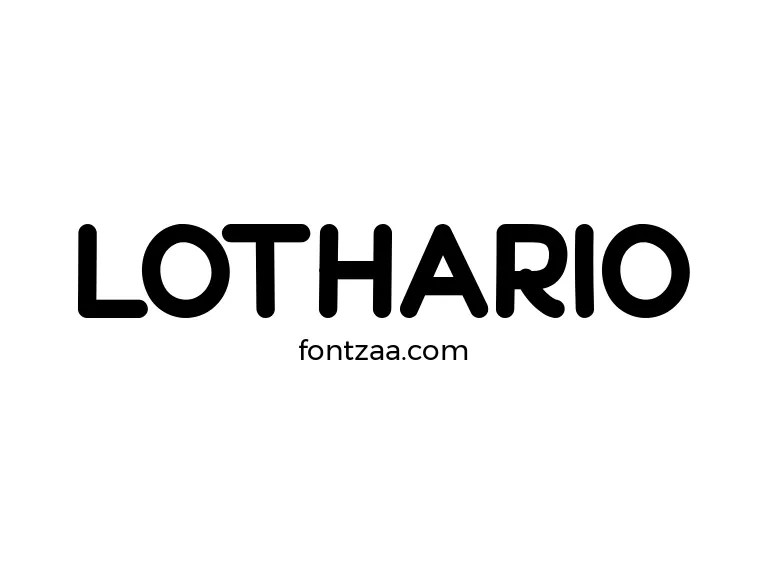
Lothario Font introduces a modern typographic style that can give creative projects a more individual appearance. For projects that need typography with a stronger identity, Lothario Font offers a modern direction suited to creative display work. Testing several arrangements before choosing the final version can reveal which characteristics of the typeface work best. The typeface can change considerably depending on tracking, scale, alignment, background and surrounding imagery. Different color combinations can make the same font feel subtle, energetic, premium or highly decorative. Creative uses may range from logos, wordmarks, branding, posters, packaging and promotional graphics, with different results depending on scale and layout. Print and digital layouts may require different sizing and spacing, so testing the actual output dimensions is recommended. Designers should evaluate the typeface inside the real project because a standalone preview cannot show every possible visual combination. Source metadata currently associates the font with Goliatte Creative. License details are currently listed as Free for personal use. Users should verify the supplied documentation before using the font in products or paid projects. Experimenting directly in the intended design is usually the best way to judge whether the typeface suits the project.
The visual character of Lothario Font makes it an interesting choice for designers working on headlines, branding and promotional layouts. The font can work as the primary visual element in a minimal layout or as part of a more detailed composition. The typeface can change considerably depending on tracking, scale, alignment, background and surrounding imagery. Different color combinations can make the same font feel subtle, energetic, premium or highly decorative. The font can be considered for projects such as logos, wordmarks, branding, posters, packaging and promotional graphics. Designers should evaluate the typeface inside the real project because a standalone preview cannot show every possible visual combination. Print and digital layouts may require different sizing and spacing, so testing the actual output dimensions is recommended. According to the available font information, the typeface is associated with Goliatte Creative. The listed license is Free for personal use, although users should still review the original font package before commercial use. The most effective treatment will vary by project, so designers should compare several versions before finalizing the artwork.
Designers exploring a modern typeface can use Lothario Font to add a more recognizable visual voice to digital and print projects. The font can work as the primary visual element in a minimal layout or as part of a more detailed composition. Different color combinations can make the same font feel subtle, energetic, premium or highly decorative. The typeface can change considerably depending on tracking, scale, alignment, background and surrounding imagery. Possible applications include logos, wordmarks, branding, posters, packaging and promotional graphics. A clean serif or sans serif companion can handle smaller text while this font remains focused on headlines and key messages. Print and digital layouts may require different sizing and spacing, so testing the actual output dimensions is recommended. The available source information lists Goliatte Creative as the designer or publisher. The available licensing label is Free for personal use, but redistribution and commercial permissions should always be confirmed from the original source. A few quick layout variations can help determine where the font creates the strongest visual result.
Lothario Font Family
Designers can use the Lothario Font Family in several ways by varying scale, alignment, background treatment and supporting typography. With its distinctive letterforms, Lothario Font can introduce a modern character into font-family exploration. The typeface can change considerably depending on tracking, scale, alignment, background and surrounding imagery. Testing several arrangements before choosing the final version can reveal which characteristics of the typeface work best. Different color combinations can make the same font feel subtle, energetic, premium or highly decorative. Designers may explore it across logos, wordmarks, branding, posters, packaging and promotional graphics, depending on the tone and requirements of the project. Print and digital layouts may require different sizing and spacing, so testing the actual output dimensions is recommended. Keeping secondary typography simple often allows the distinctive qualities of the main font to remain more visible. The designer or publisher information available for this typeface is Goliatte Creative. The listed license is Free for personal use, although users should still review the original font package before commercial use. Its final appearance will depend heavily on the surrounding colors, imagery, spacing and supporting typography.
Designers exploring a modern typeface can use Lothario Font to add a more recognizable visual voice to discovering alternatives and related typography. Using generous space around the lettering can help the details of the typeface remain visible instead of competing with other elements. The font can work as the primary visual element in a minimal layout or as part of a more detailed composition. The typeface can change considerably depending on tracking, scale, alignment, background and surrounding imagery. Designers may explore it across logos, wordmarks, branding, posters, packaging and promotional graphics, depending on the tone and requirements of the project. Previewing the final layout on both large and small screens helps identify spacing and readability problems early. Print and digital layouts may require different sizing and spacing, so testing the actual output dimensions is recommended. The available source information lists Goliatte Creative as the designer or publisher. Current license information is shown as Free for personal use; checking the original documentation is recommended before client or commercial work. Testing the font with the actual project text can provide a much better impression than viewing isolated sample characters. Explore more typography on Fontzaa or browse the 100% Free Fonts collection.
Projects That Suit Lothario Font
The visual character of Lothario Font makes it an interesting choice for designers working on different creative applications for the font. The typeface can change considerably depending on tracking, scale, alignment, background and surrounding imagery. The font can work as the primary visual element in a minimal layout or as part of a more detailed composition. Its letter shapes become especially noticeable at larger sizes, where spacing and proportions can be explored more clearly. Creative uses may range from logos, wordmarks, branding, posters, packaging and promotional graphics, with different results depending on scale and layout. Previewing the final layout on both large and small screens helps identify spacing and readability problems early. A clean serif or sans serif companion can handle smaller text while this font remains focused on headlines and key messages. Source metadata currently associates the font with Goliatte Creative. Current license information is shown as Free for personal use; checking the original documentation is recommended before client or commercial work. Testing the font with the actual project text can provide a much better impression than viewing isolated sample characters.
Tips for Better Results With Lothario Font
With its distinctive letterforms, Lothario Font can introduce a modern character into spacing, contrast, scale and layout decisions. The font can work as the primary visual element in a minimal layout or as part of a more detailed composition. Using generous space around the lettering can help the details of the typeface remain visible instead of competing with other elements. The typeface can change considerably depending on tracking, scale, alignment, background and surrounding imagery. Possible applications include logos, wordmarks, branding, posters, packaging and promotional graphics. A clean serif or sans serif companion can handle smaller text while this font remains focused on headlines and key messages. For layouts containing longer information, pairing it with a simpler supporting typeface can improve readability and hierarchy. The available source information lists Goliatte Creative as the designer or publisher. Current license information is shown as Free for personal use; checking the original documentation is recommended before client or commercial work. Its final appearance will depend heavily on the surrounding colors, imagery, spacing and supporting typography.
Choosing Supporting Fonts for Lothario Font
The visual character of Lothario Font makes it an interesting choice for designers working on combining the display font with supporting typefaces. Different color combinations can make the same font feel subtle, energetic, premium or highly decorative. Its letter shapes become especially noticeable at larger sizes, where spacing and proportions can be explored more clearly. The typeface can change considerably depending on tracking, scale, alignment, background and surrounding imagery. Creative uses may range from logos, wordmarks, branding, posters, packaging and promotional graphics, with different results depending on scale and layout. Keeping secondary typography simple often allows the distinctive qualities of the main font to remain more visible. For layouts containing longer information, pairing it with a simpler supporting typeface can improve readability and hierarchy. The available source information lists Goliatte Creative as the designer or publisher. Current license information is shown as Free for personal use; checking the original documentation is recommended before client or commercial work. The most effective treatment will vary by project, so designers should compare several versions before finalizing the artwork.